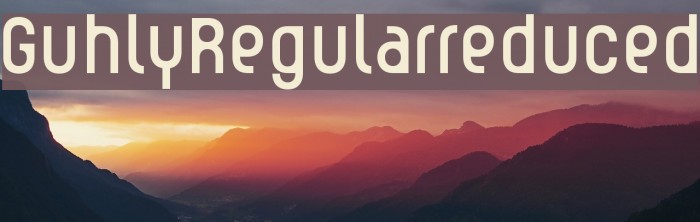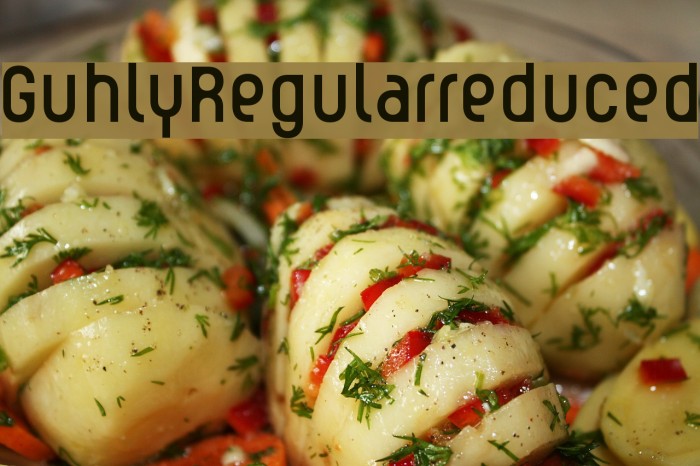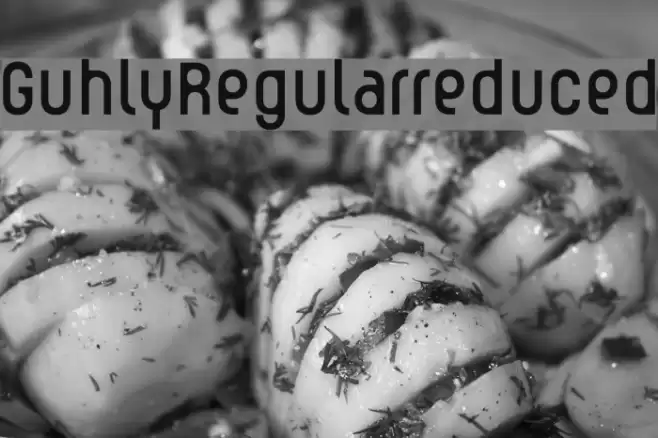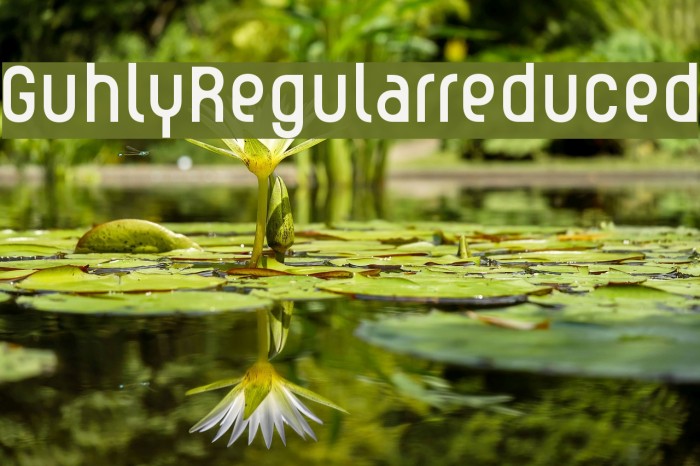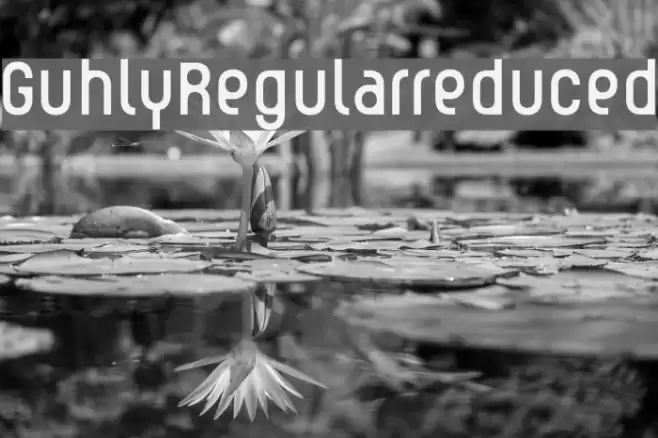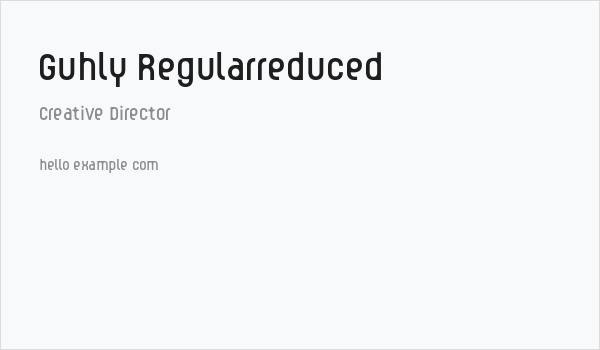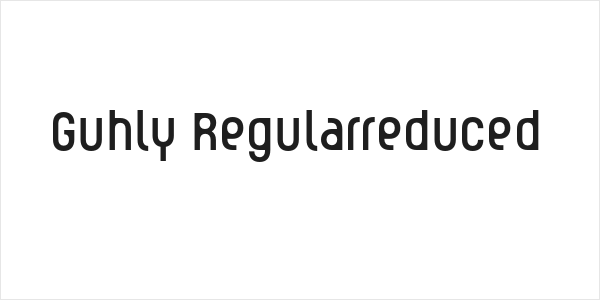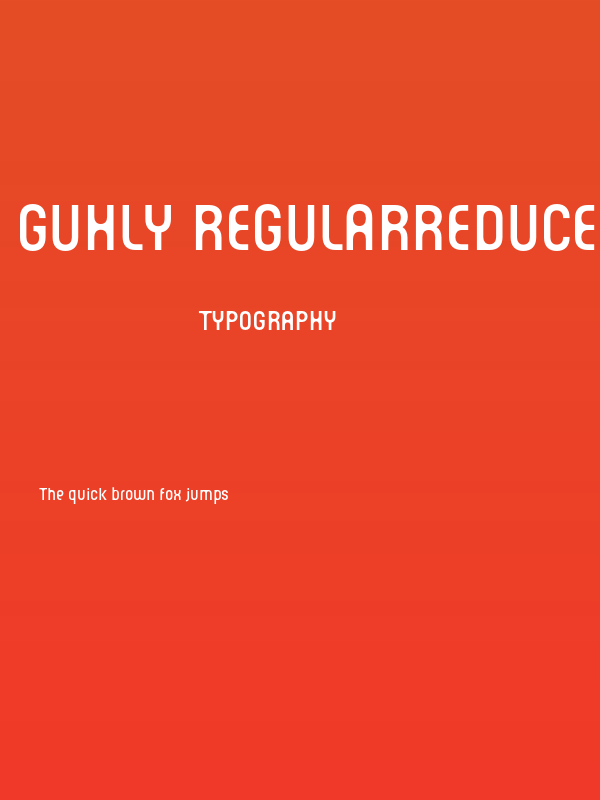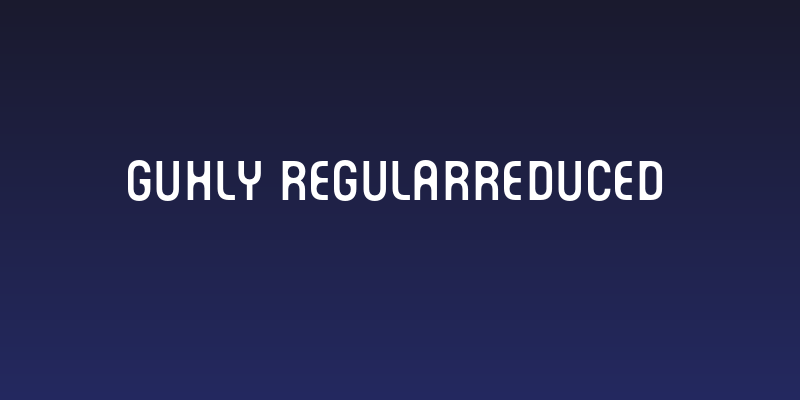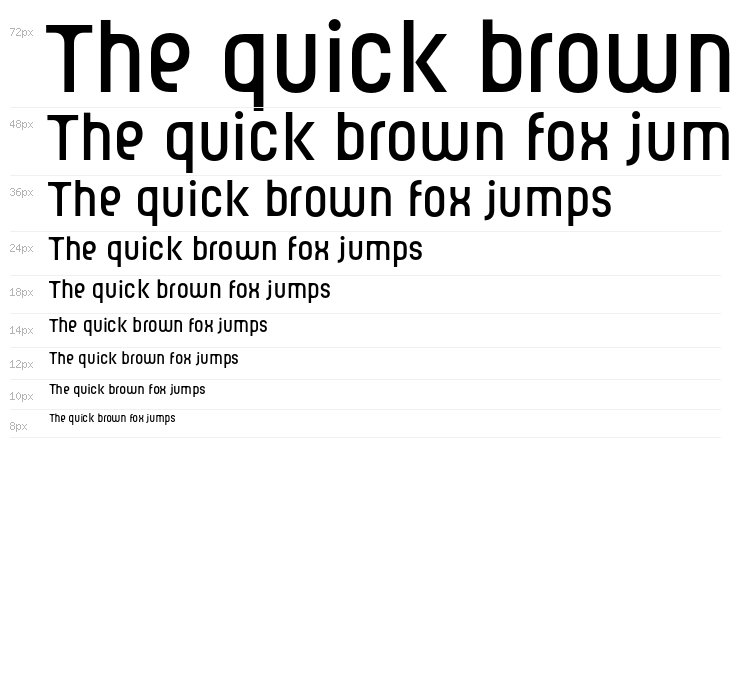
Guhly-Regularreduced Font
Guhly-Regularreduced Description
This font features a modern and sleek design with rounded edges and a clean, geometric structure. The uppercase and lowercase letters maintain a consistent height, providing a uniform appearance. The characters are well-proportioned, with a slight emphasis on verticality, giving them an elegant and contemporary look. The font's simplicity and clarity make it highly legible, suitable for various design applications. The numerals and special characters are designed to match the overall style, ensuring a cohesive visual experience.
| Proposed Projects | Ideal for branding, web design, advertising, and editorial projects where a clean and modern aesthetic is desired. |